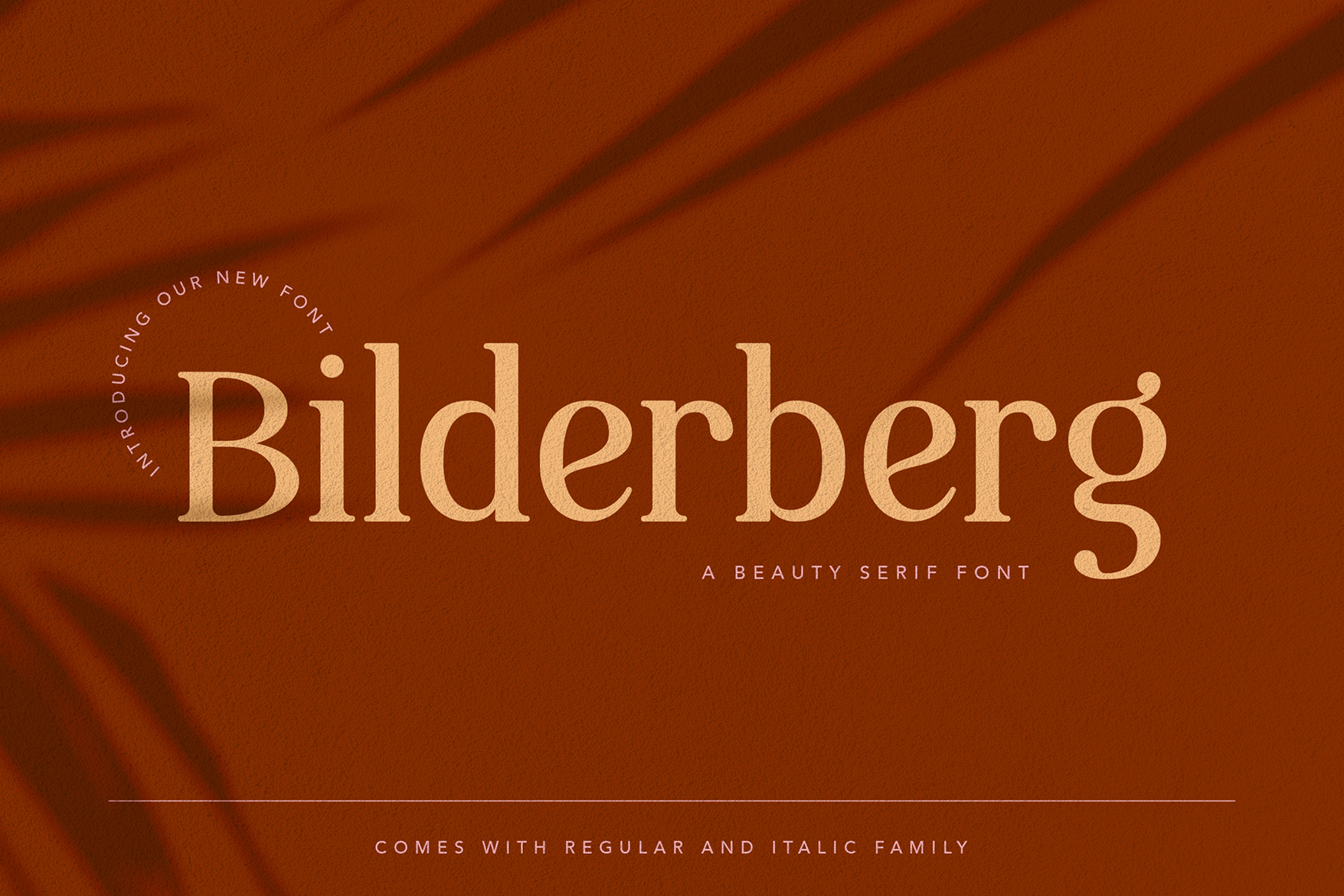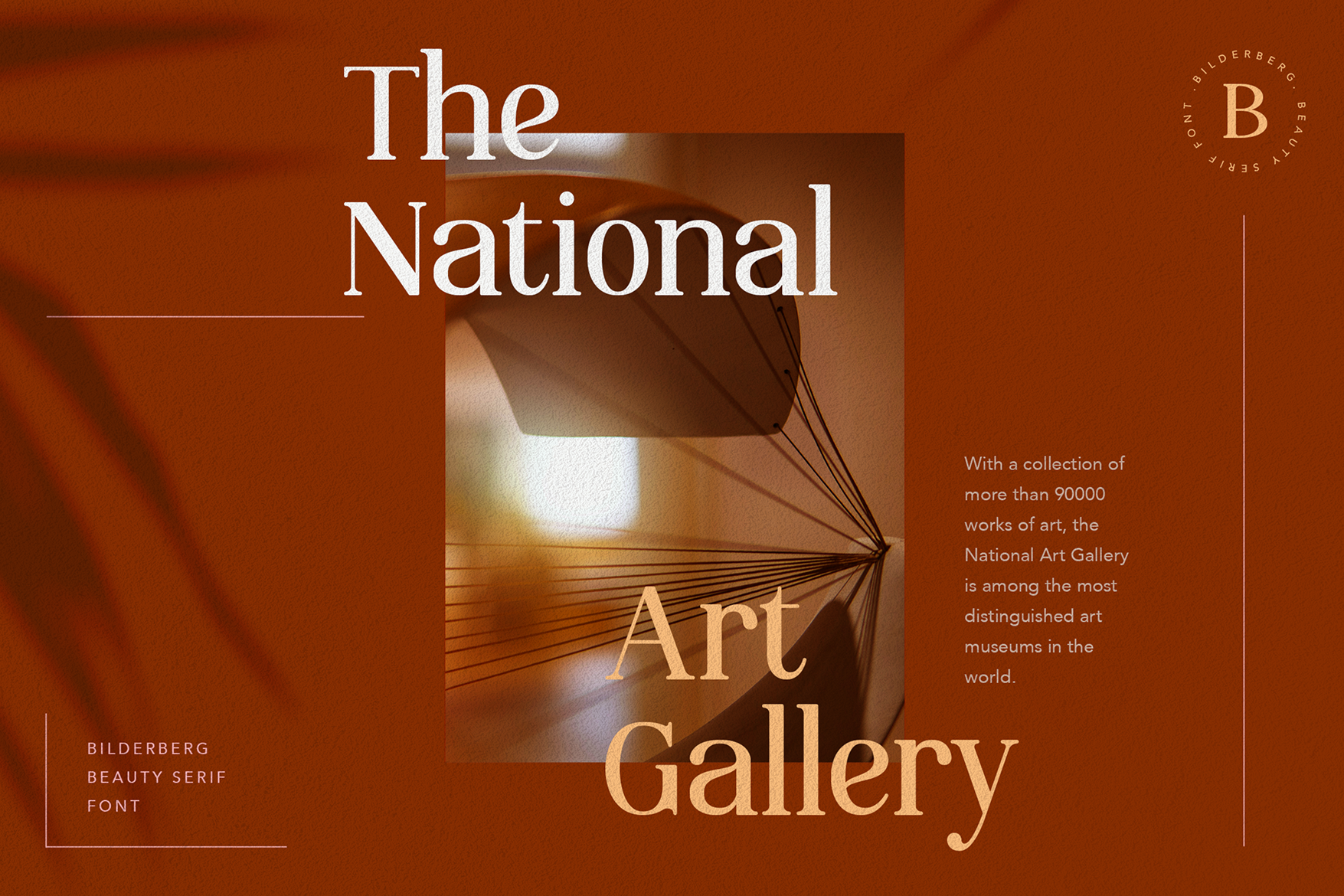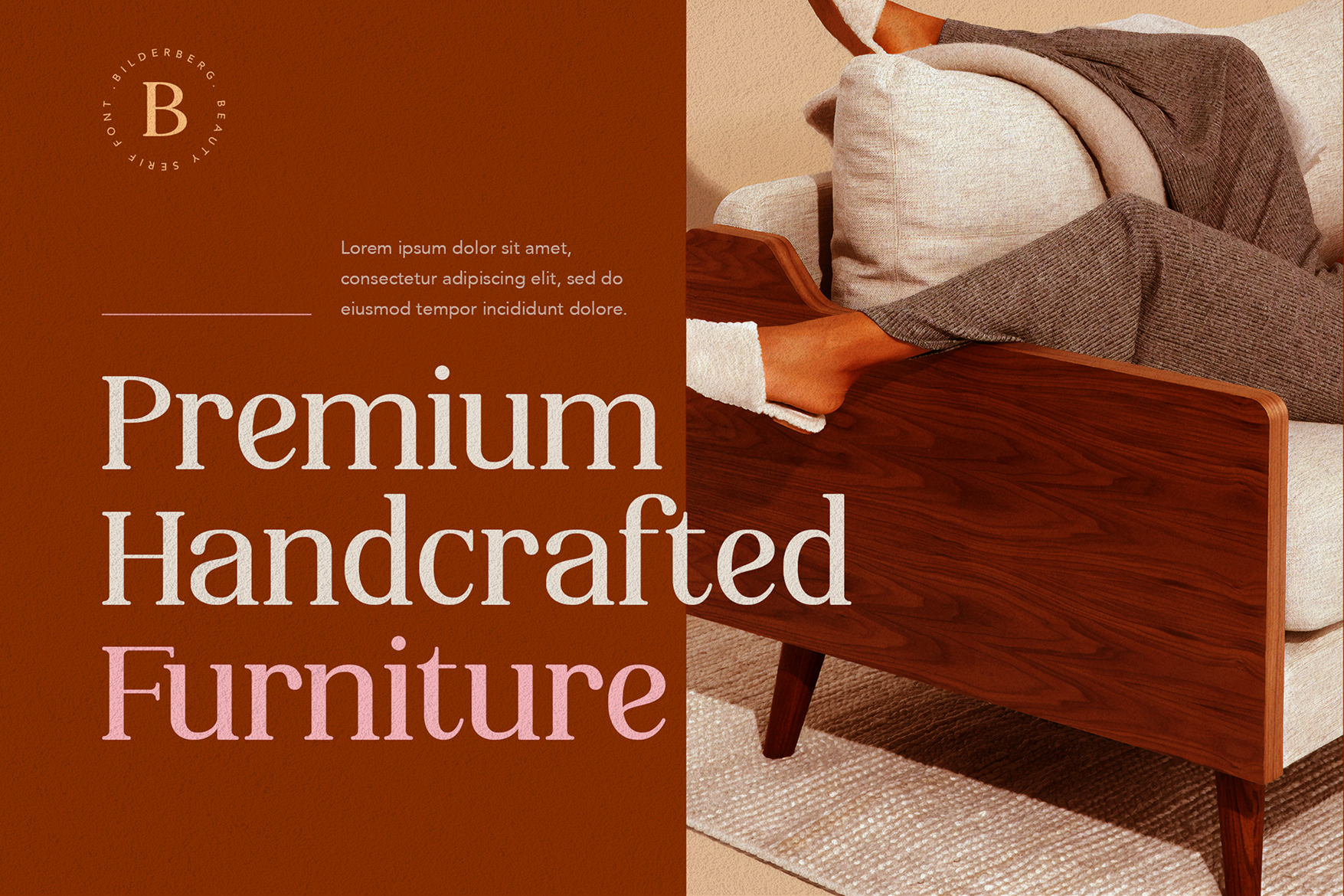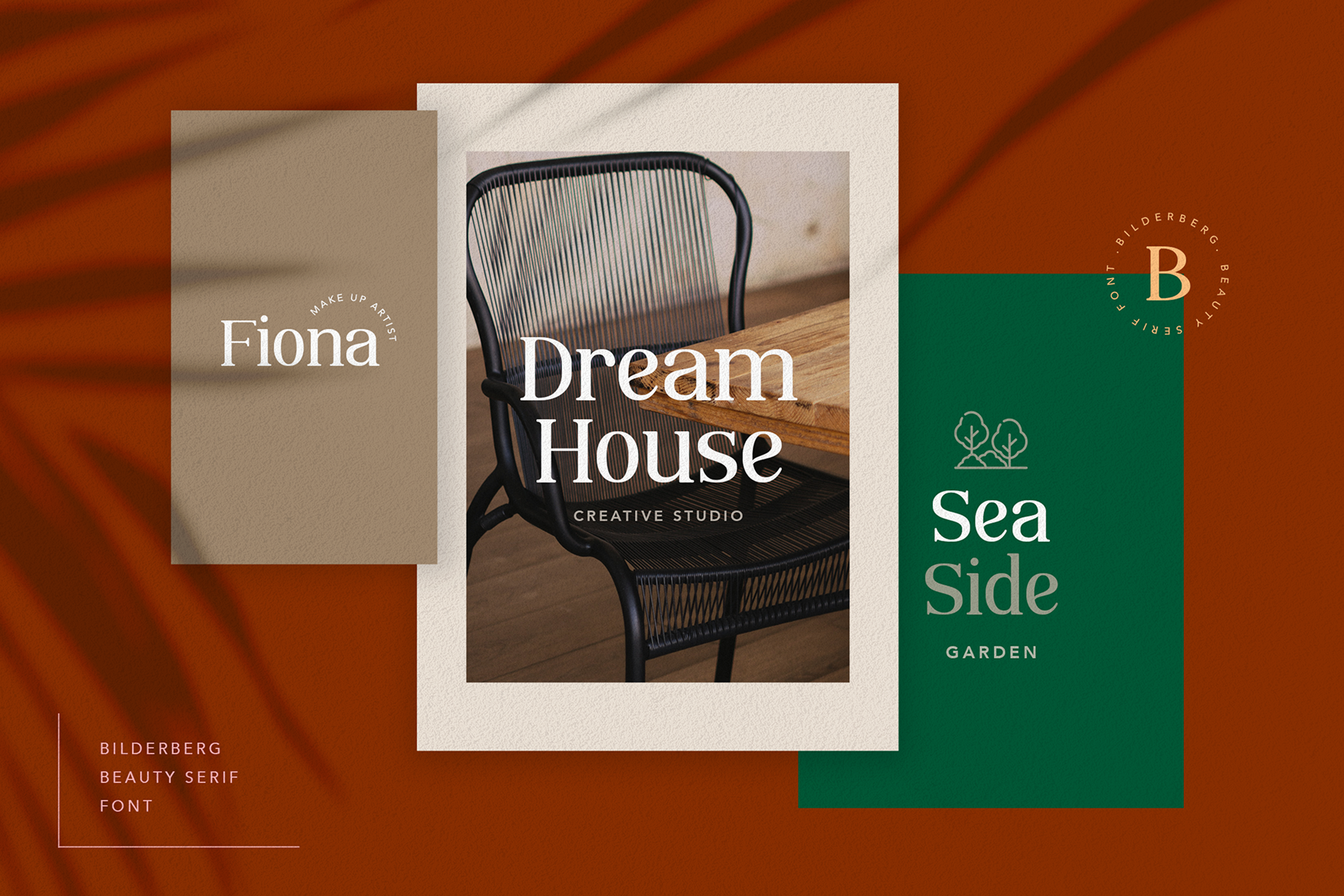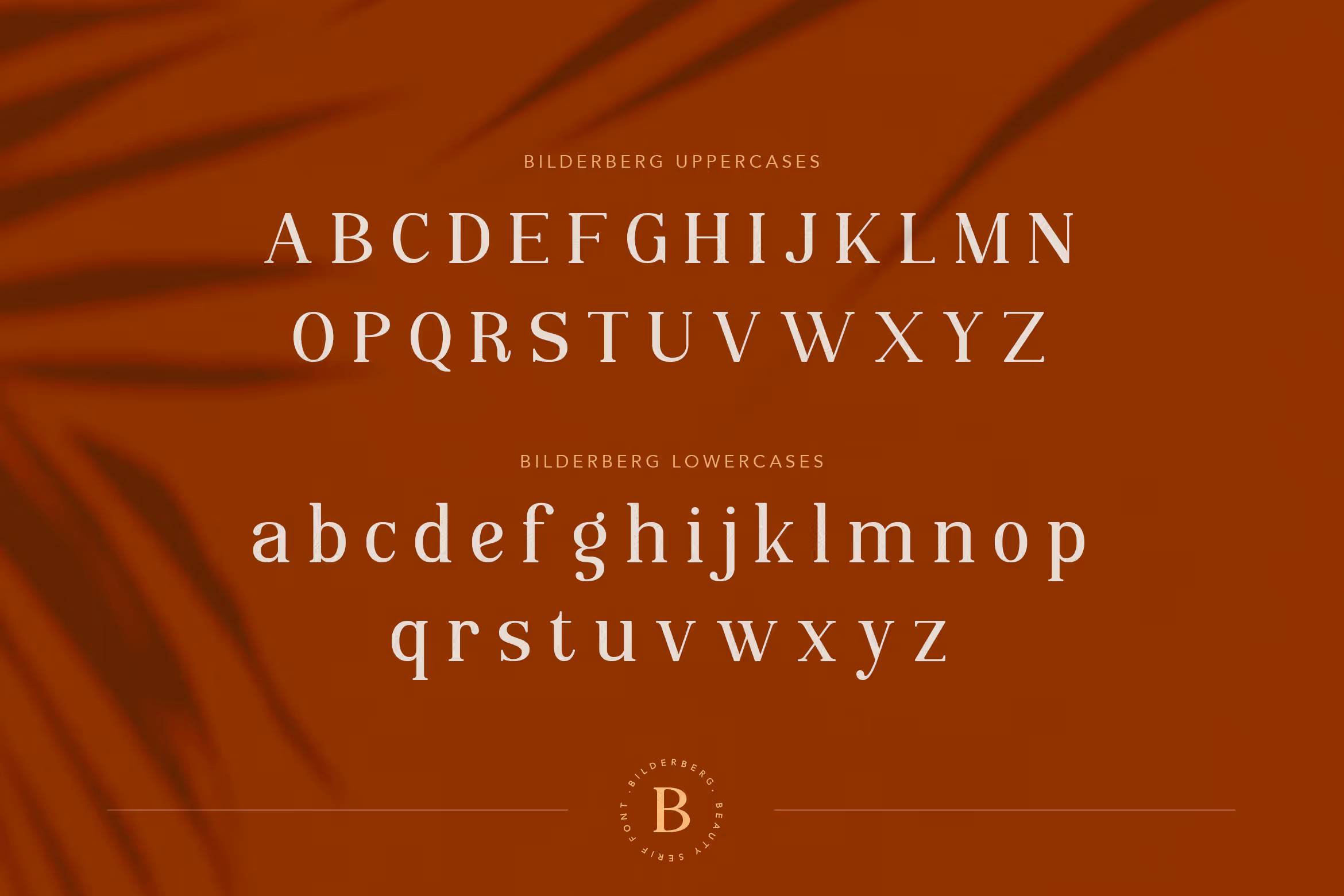
Not many fonts can fit to all language around the world, but our Bilderberg can meet your needs. Give your warm welcome to Bilderberg, the contemporary serif font that support multilingual use with minimalist, elegant, vintage and beautiful design.
Bilderberg Contemporary Serif font is a perfect choice for branding projects, logo, wedding designs, social media posts, advertisements, quoted text, coffee shop, product packaging, product designs, label, photography, watermark, invitation, stationery, fashion, boutique, furniture, and any projects involved in creative works.
This stylish serif font is available in uppercase and lowercase letters, regular and italic mode and OTF and TFF format font file. Every pack included accented characters, numbering 0-9 and punctuation that support for Mac and Windows operating system uses. Create your own texted works to be more eye-catching and attractive by using Bilderberg!